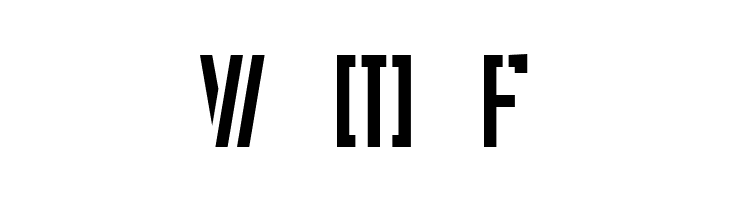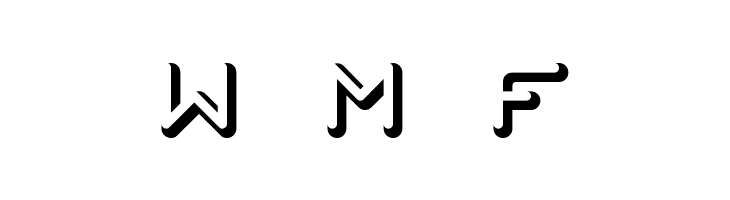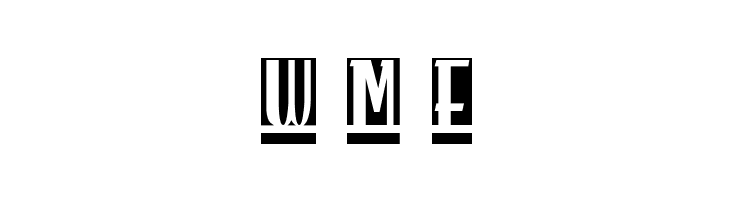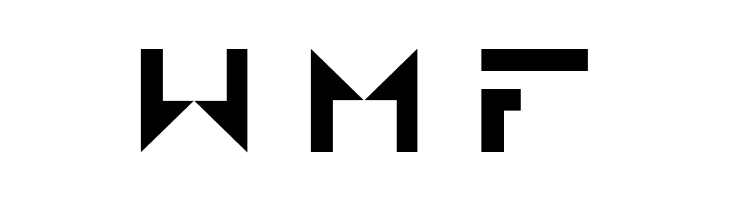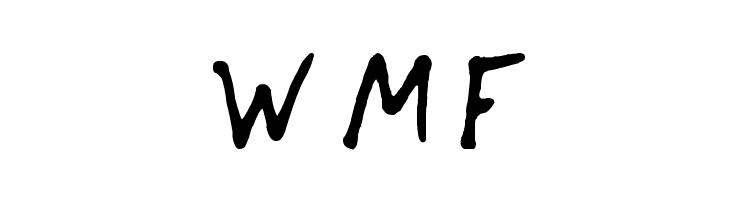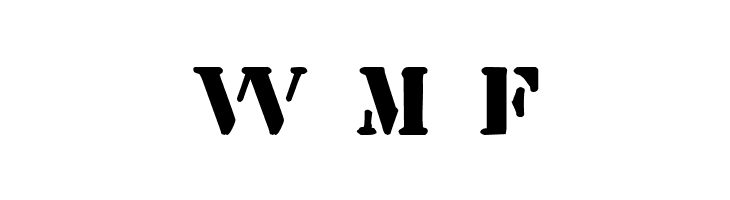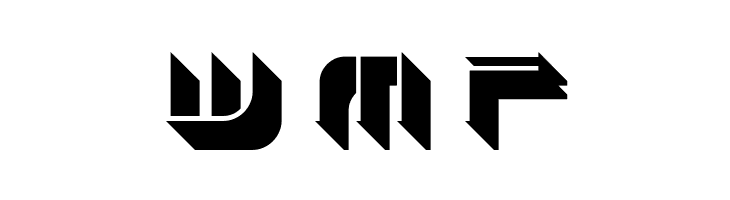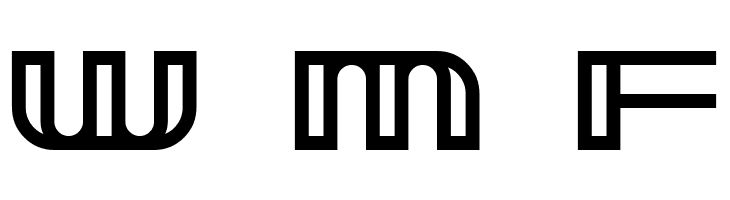
( Fonts by joeBob graff-X )
A bold, stencil-style font with high contrast and geometric shapes.
( Fonts by www.stimuleyefonts.com )
A bold, stencil-style font with sharp angles and an industrial feel.
A bold, futuristic font with sharp angles and geometric shapes.
( Fonts by Rich Gast - www.greywolfwebworks.com OFF SITE )
A bold, futuristic font with geometric and angular design elements.
( Fonts by www.exclamachine.com )
A bold, stencil-like font with geometric and industrial design elements.
( Fonts by AEnigma - www.aenigmafonts.com )
A futuristic, geometric font with a stencil-like design and bold, rounded edges.
( Fonts by Emerald City Fontwerks )
A bold, stencil-like font with thick, blocky strokes and sharp edges.